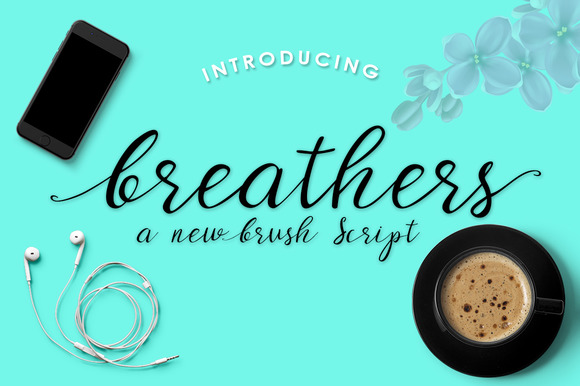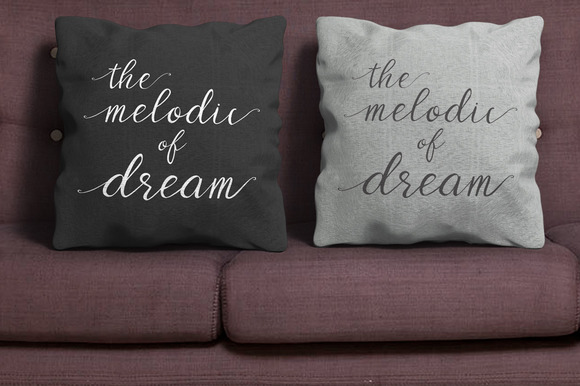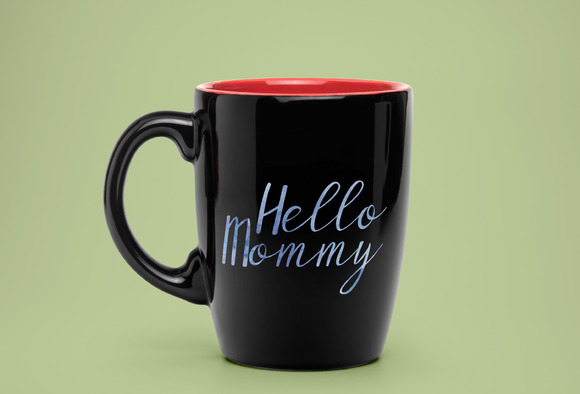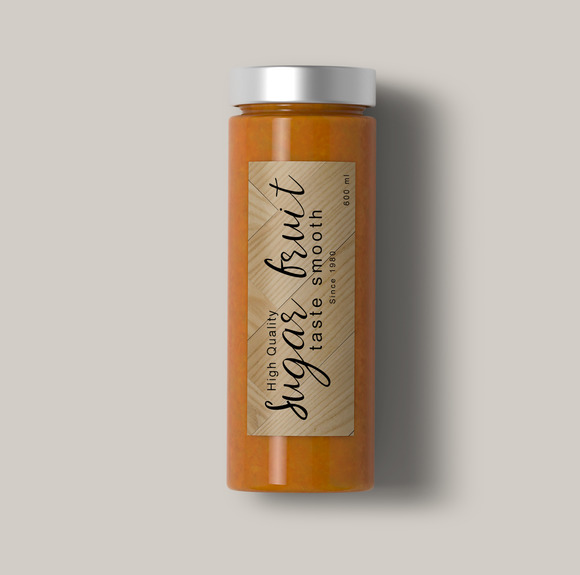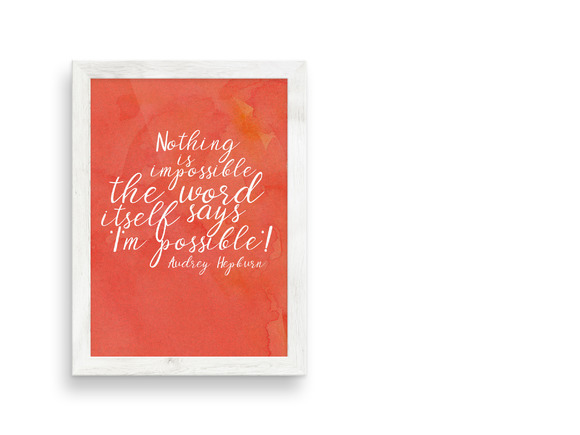
Breathers
Breathers Brush Script Font
Breathers is a classic handwritten font with romantic feeling. Modern and elegant, it will work perfect on wedding invitation, greeting card, blog posts, social media, business cards etc.